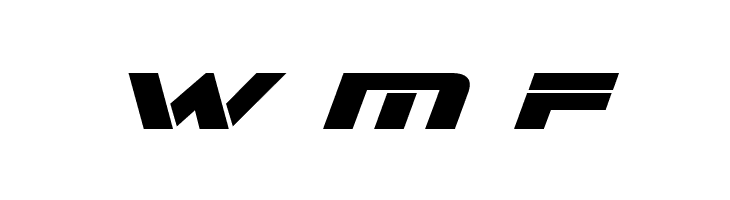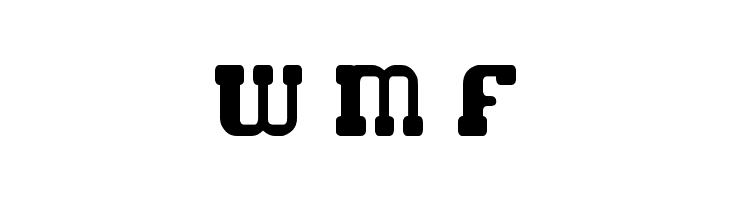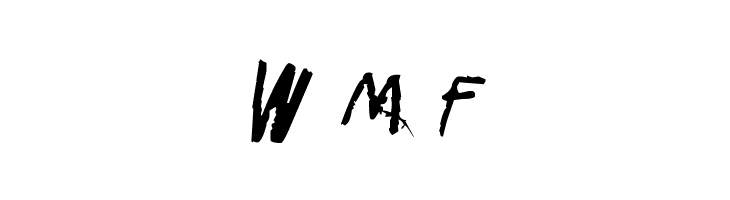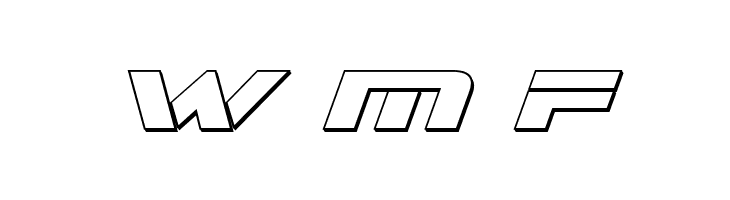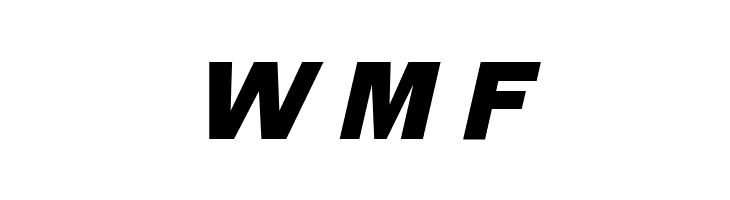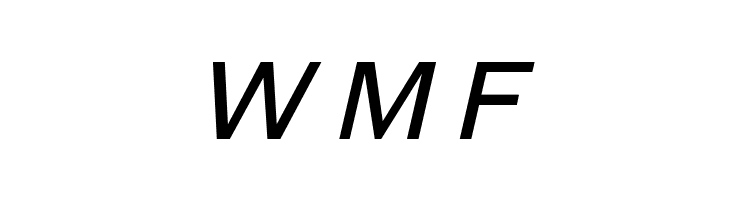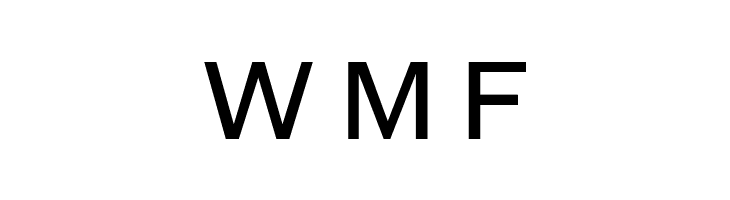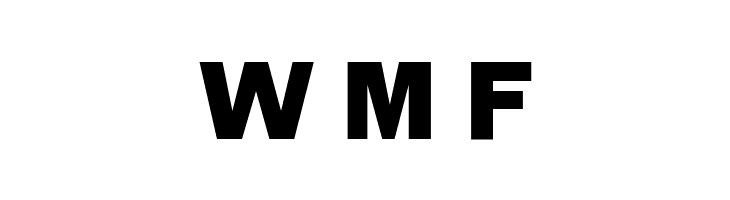
A bold, italic, and futuristic font with sharp angles and dynamic style.
A bold, futuristic font with geometric shapes and sharp angles.
A bold, italicized font with a futuristic and dynamic design.
A bold, futuristic font with a leftward slant and geometric design.
A bold, geometric outline font with a modern and structured appearance.
A modern, italic outline font with bold, geometric characters.
A bold, semi-italic font with a futuristic and dynamic style.
A modern, italicized font with medium contrast and sleek design.
A modern, geometric sans-serif font with a clean and balanced design.
A bold, italic font with strong, thick strokes and a modern style.
A bold, geometric sans-serif typeface with strong, uniform strokes.
A sleek, modern italic font with clean lines and a sophisticated style.
A clean, modern sans-serif font with a geometric and minimalist design.
A sleek, modern italic font with elongated characters and smooth curves.
A bold, modern font with strong, clean lines and excellent readability.
A modern, italicized font with a sleek and dynamic style.
A bold, modern sans-serif font with clean lines and uniform strokes.
A sleek, modern italic font with thin, consistent strokes and a dynamic appearance.
A modern, ultra-lightweight font with sleek, geometric lines and a minimalistic style.
A bold, graffiti-inspired font with a hand-drawn, distressed look.
A bold, Gothic-inspired font with sharp, angular lines and pointed serifs.
A bold, geometric font with a futuristic and mechanical style.
A bold, modern sans-serif font with a geometric and playful style.
A bold, geometric font with a digital, arcade-inspired style.
A bold, italicized font with a pixelated, digital style ideal for modern designs.
A bold, angular, and futuristic italic font with a digital aesthetic.
A hollow, geometric font with a futuristic, tech-inspired design.
A futuristic, hollow, tech-inspired font with geometric outlines.
A bold, tech-inspired font with geometric, blocky characters and cut-out sections.
A bold, geometric font with a pixelated, digital aesthetic.